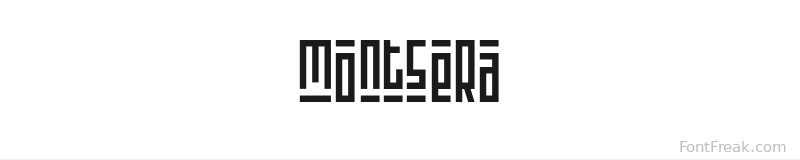
montsera
Montsera, designed by MaknaStudio in 2020, is a striking sans-serif typeface that captures attention with its modern aesthetic. This font boasts a clean and contemporary look, characterized by consistent stroke weights and a balanced structure that lends itself well to various design applications. With its minimal contrast and ample spacing, Montsera ensures readability while maintaining a stylish edge, making it a versatile choice for both digital and print projects.
This font excels in a range of specific uses. It is particularly well-suited for branding and marketing materials, where clarity and impact are paramount. Montsera can enhance the visual appeal of wedding invitations, giving a chic yet approachable feel. Additionally, its bold presence makes it ideal for eye-catching movie posters, where it can effectively convey drama and excitement. Restaurant menus can also benefit from Montsera’s clean lines, ensuring that dish descriptions are both legible and inviting. Furthermore, content creators will find this font perfect for social media graphics, where its modern look can help capture the audience's attention.
What sets Montsera apart is its ability to combine elegance and simplicity, making it a standout choice for anyone in need of a contemporary typeface. Whether you are crafting a brand identity or designing promotional materials, Montsera font free download provides an excellent resource in your creative toolkit, ensuring your projects resonate with clarity and style.